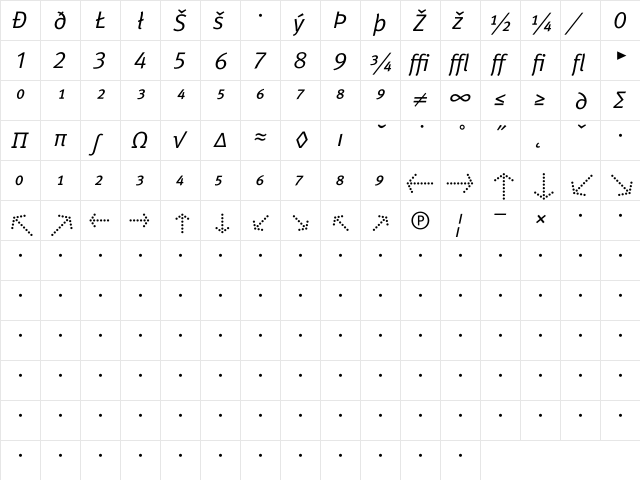
Meta Normal Expert Italic Font Preview
Meta Normal Expert Italic
Meta Normal Expert Italic Font Details
| Style | Normal Expert Italic |
Design Context for Meta Typeface
Meta offers clean, dependable letterforms without strong stylistic allegiance, making it a practical choice for designers who need flexibility. The slanted form adds forward momentum and visual energy.
Pro Tip: Try Meta for annotation and caption copy alongside an upright companion — the contrast in angle creates a dynamic but ordered typographic system.